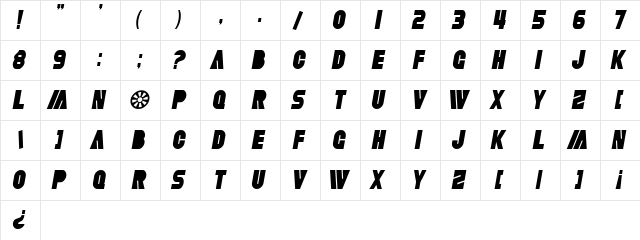
SF Fortune Wheel Condensed Italic Font Preview
Design Context for SF Fortune Wheel Condensed Typeface
SF Fortune Wheel Condensed offers clean, dependable letterforms without strong stylistic allegiance, making it a practical choice for designers who need flexibility. Its italic angle brings a sense of urgency and motion to the letterforms. The condensed width makes it efficient for tight spaces without sacrificing legibility.
Pro Tip: Use SF Fortune Wheel Condensed for emphasis, pull quotes, and subheadings where its slanted energy can add rhythm to the layout.